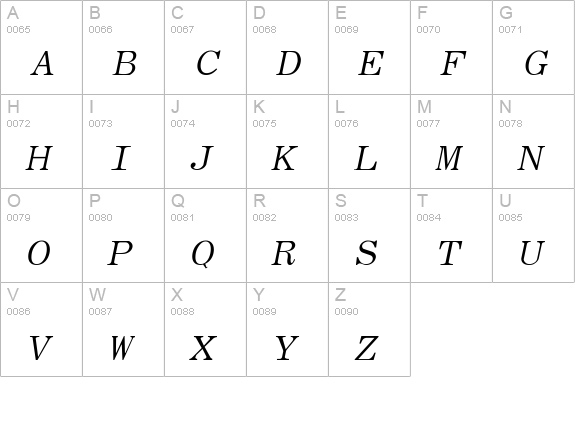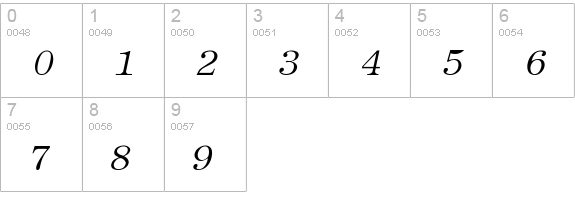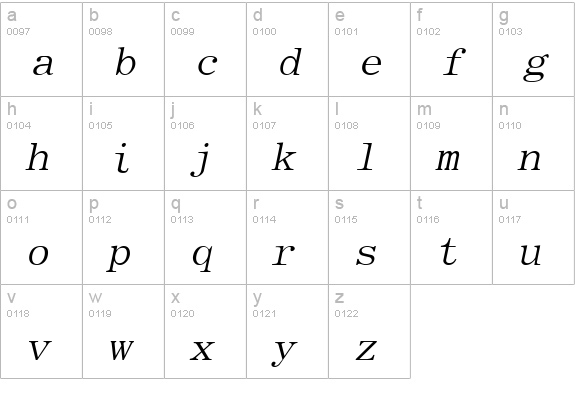
Elite Italic is a distinctive, italic variant in the Elite typeface family \xE2\x80\x94 well suited to design and typography projects.
Discover the elegance and sophistication of Elite Italic font, a timeless typeface that exudes a sense of luxury and class. The sleek and slender letterforms of Elite Italic make it perfect for adding a touch of refinement to any design project. Whether you are creating invitations, logos, or editorial layouts, this font will elevate your work to the next level. The best part? Elite Italic font is available for free download at FontsMarket.com. Now you can access this exquisite typeface without any cost, making it easier than ever to incorporate a touch of elegance into your designs. Don't miss out on this opportunity to enhance your projects with the beauty of Elite Italic font.